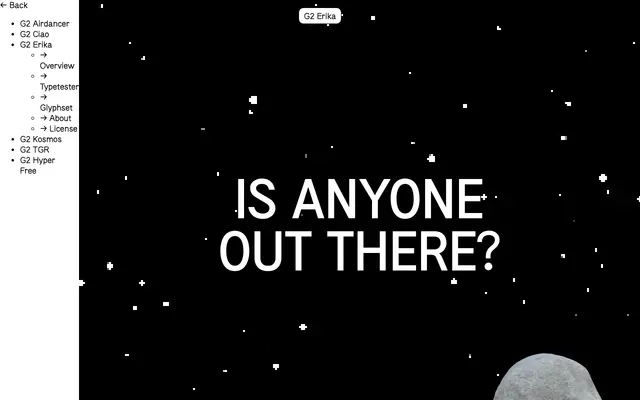
G2 Erika
A paired proportional and monospace sans by Moritz Appich, rooted in typewriter lettering and developed through extended use as a system font.
Originally conceived as a semi-condensed monospace referencing historic typewriter lettering, G2 Erika evolved into a dual-family system comprising a proportional sans and its monospace counterpart. The two styles were developed in tandem, allowing each to influence the other, producing a family that carries the technical logic of typewriter type alongside the detail and rhythm of a proportional grotesque. The glyph set extends into mathematical operators and astronomical symbols, added in response to early use in a publication on the logical language LINCOS.
A proportional sans derived from a typewriter monospace origin, sharing geometric and technical characteristics with grotesque sans-serifs while maintaining the neutral rhythm of a proportional design.